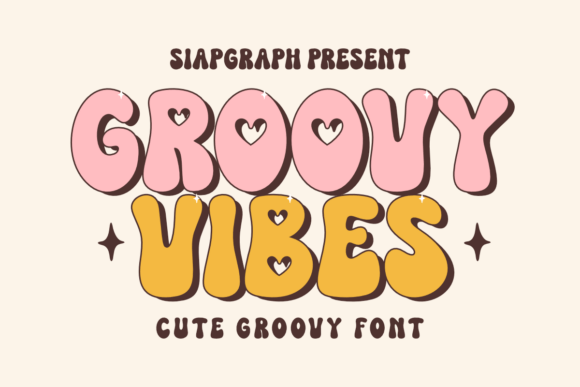
Groovy Vibes Font
Groovy Vibes is a fun and adorable groovy font inspired by the retro 70s design with a modern touch. This font is perfect for various creative projects such as t-shirts, logos, posters, stickers, invitations, product packaging, branding, and social media. With its bold, rounded letters and unique heart details, Groovy Vibes brings a cheerful, playful, and energetic feel to your designs.